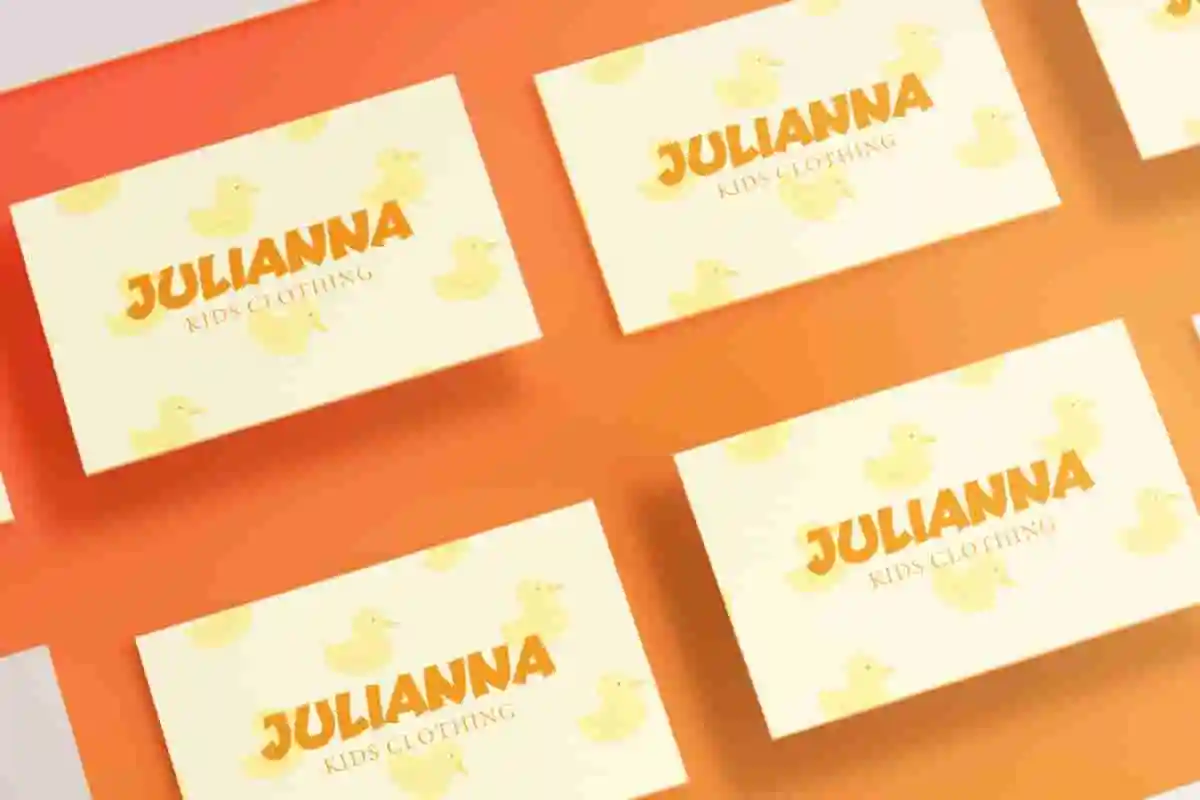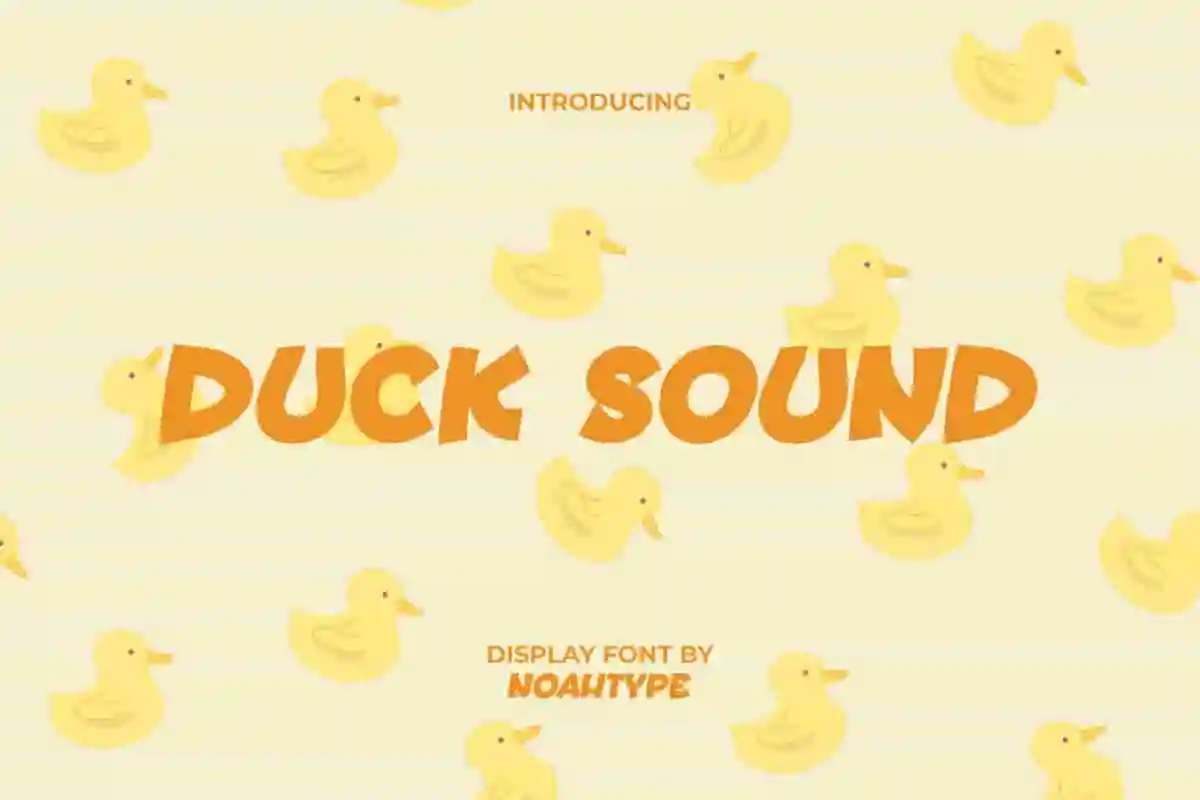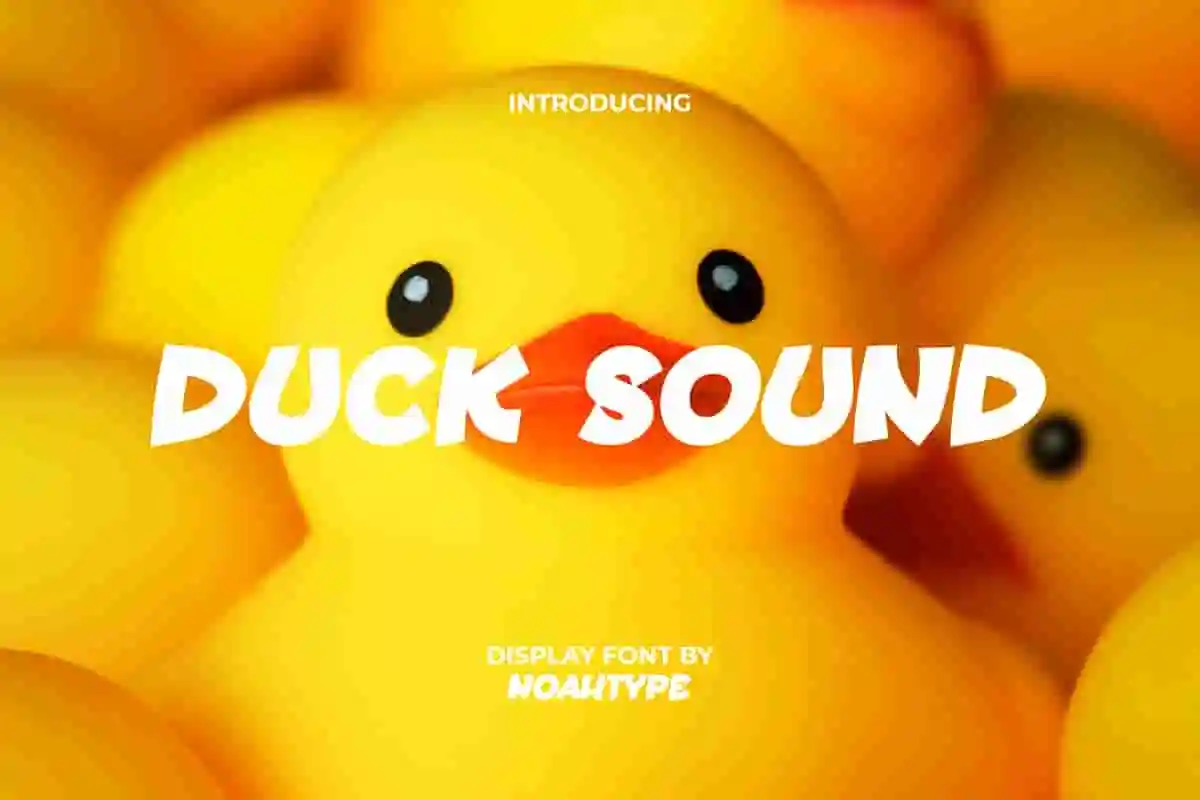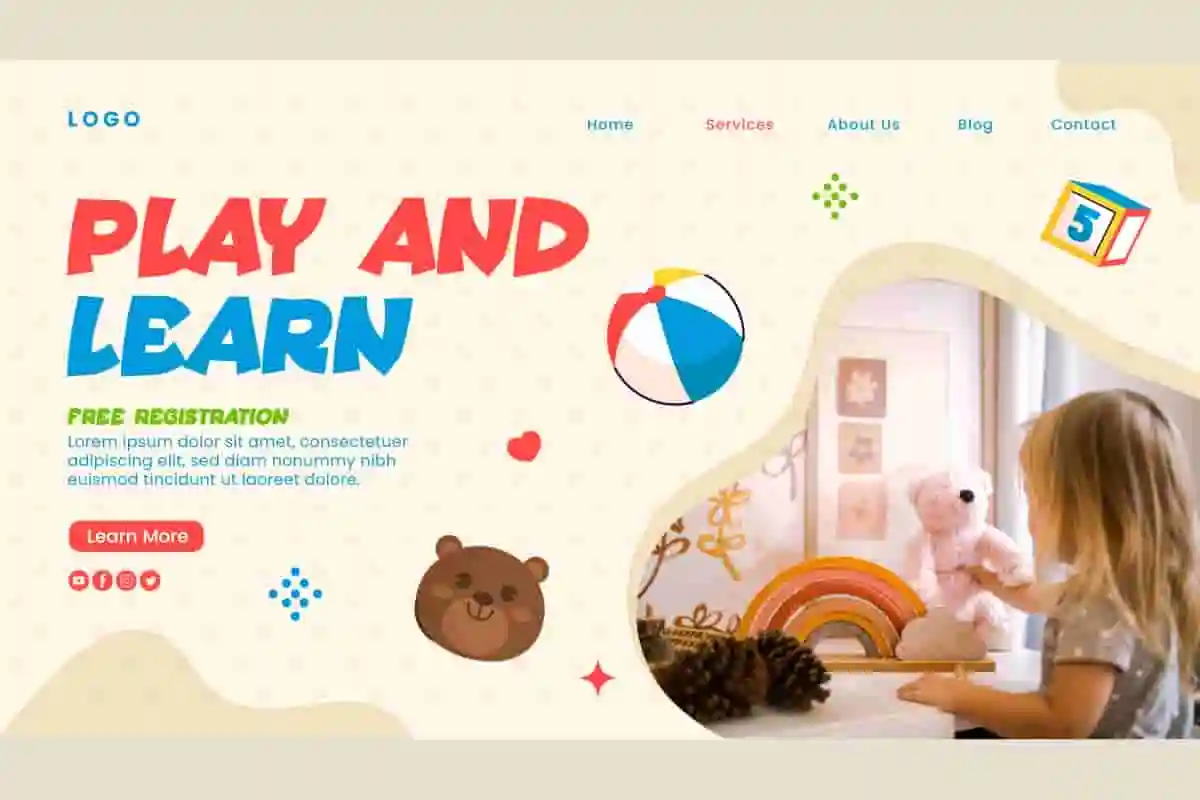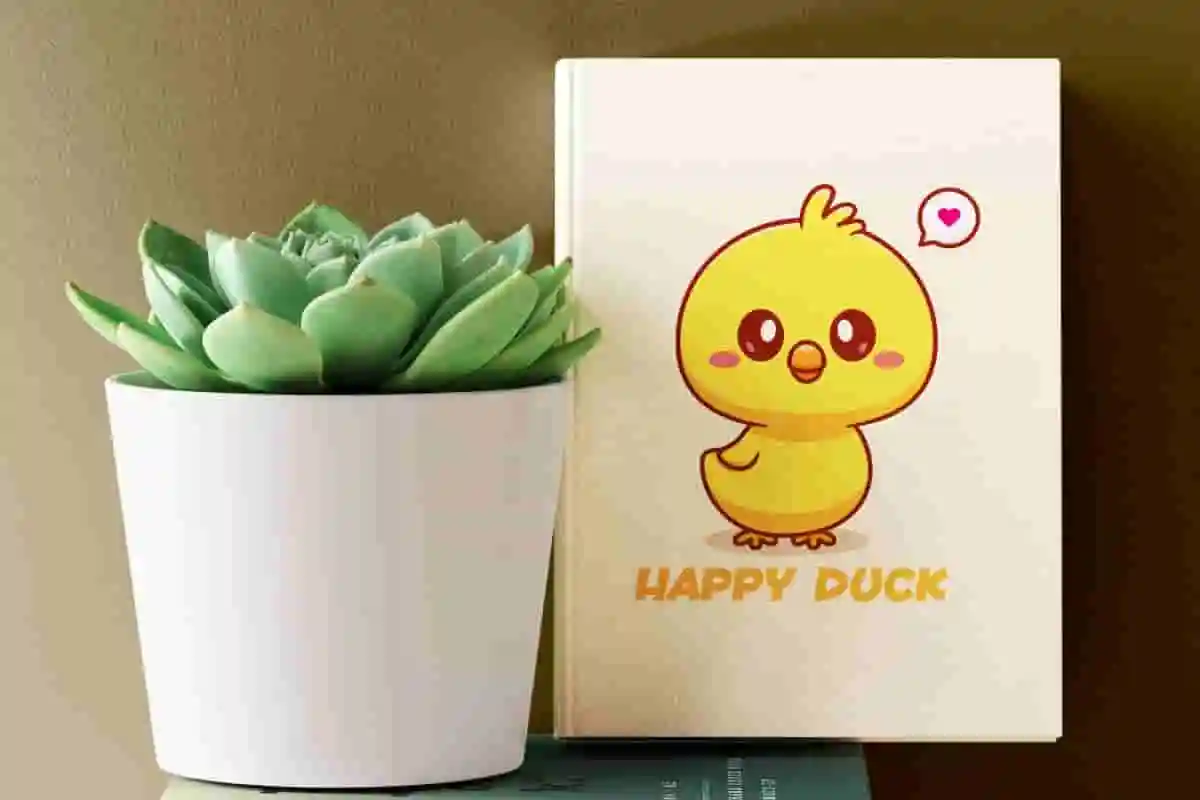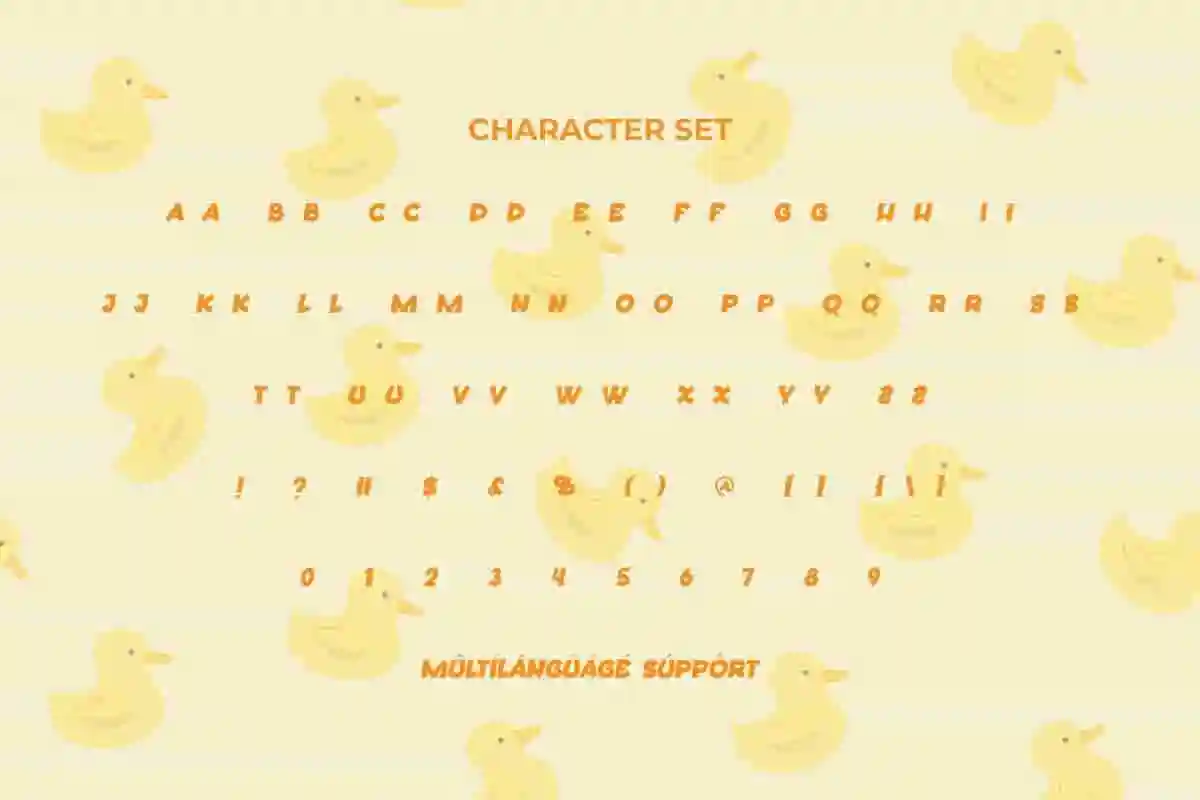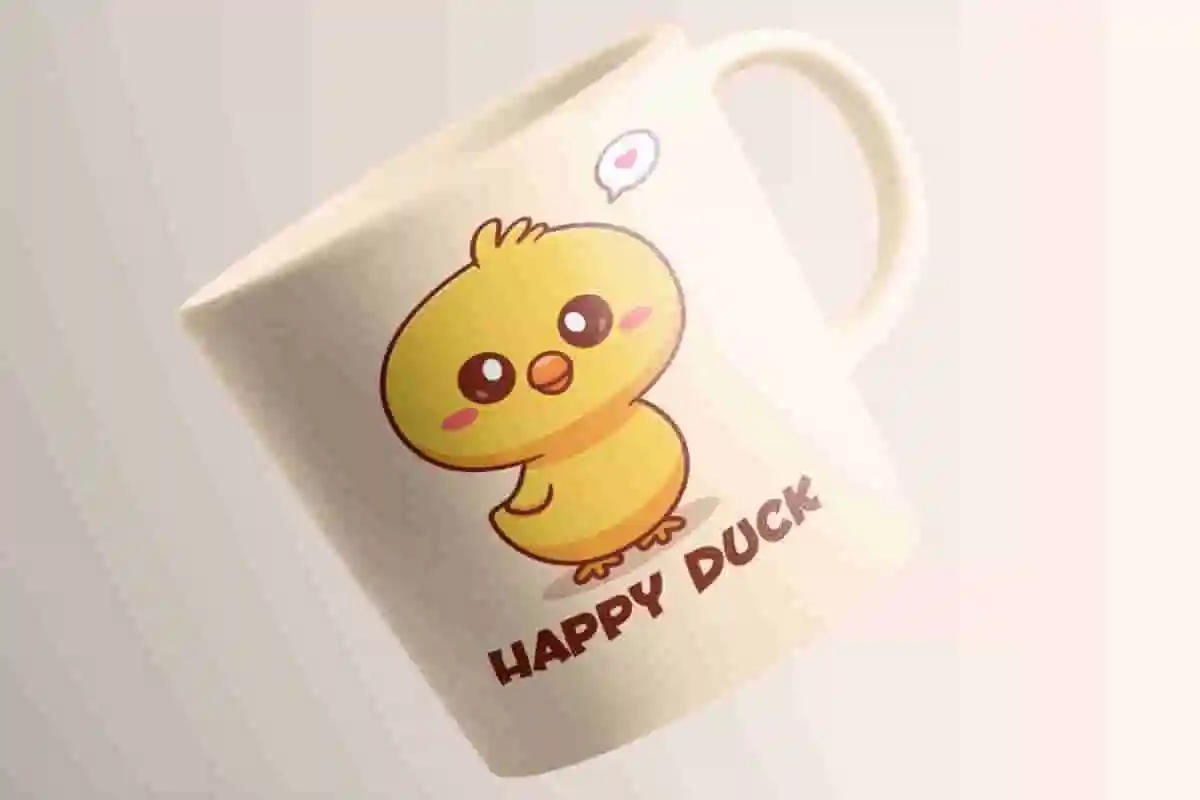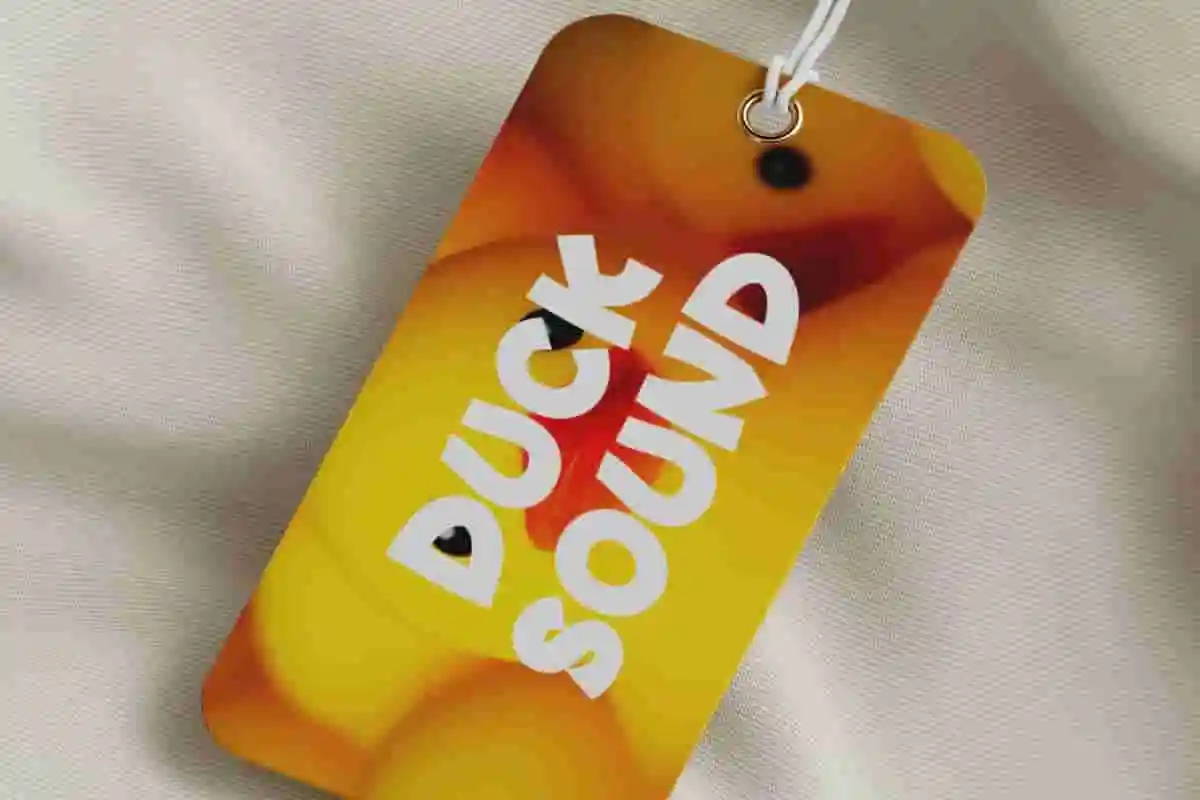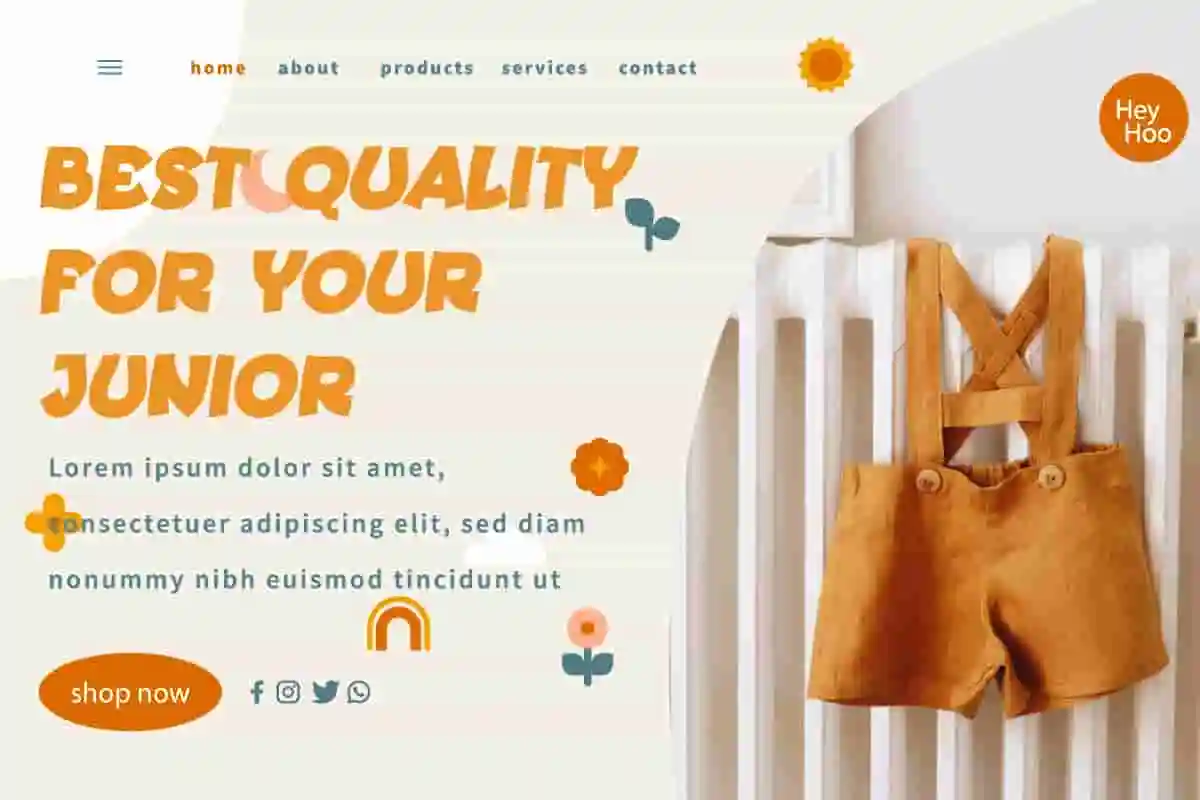
Duck Sound Font is a playful bold yet fun sans serif display font by NoahType. This font has bold letters with a unique shape so it looks attractive and fun. It will be perfect for any designs, such as brand image, cover, custom design, invitation, label, marketing material, menu, poster, product packaging, quote, signage, stationery, web, and many more!
Duck Sound Font includes full set of ALL CAPS for Uppercase and Lowercase Basic Characters, Numerals, Punctuation, and Symbol. The characters of this font will give cute feels and also a perfect choice for many industries, such as accessories, advertising, cartoon, comic, event or festival, fashion, game, kids stuff, printing, publishing, etc.